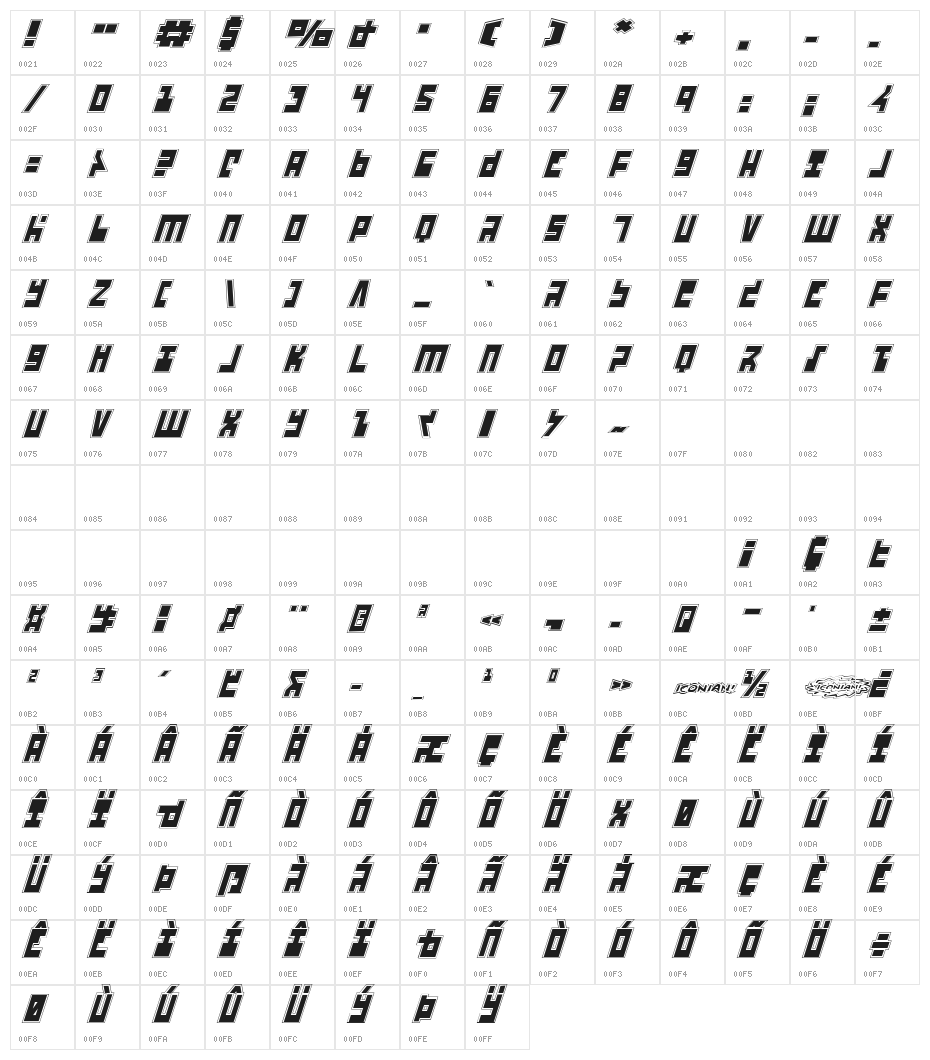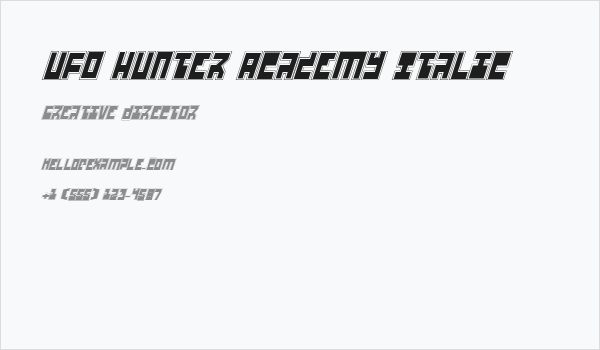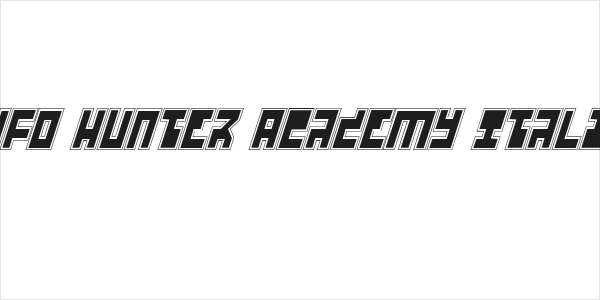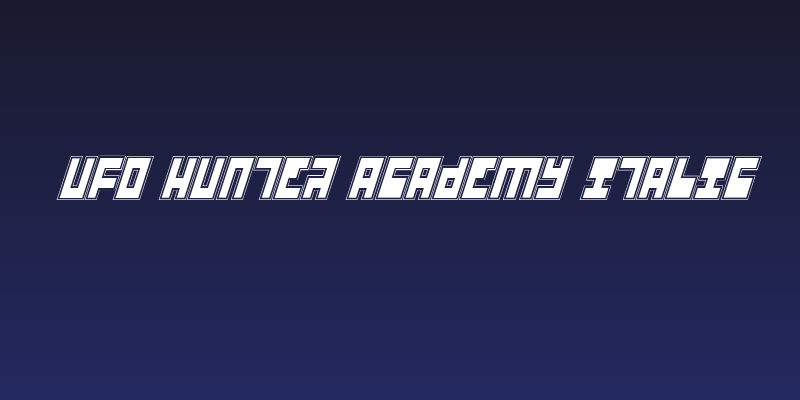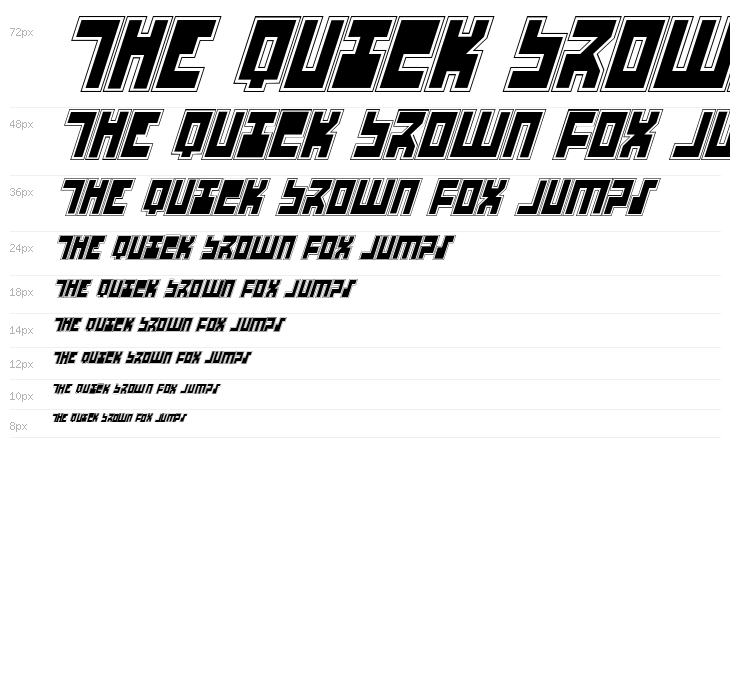
UFO Hunter Academy Italic Font
UFO Hunter Academy Italic Description
This font features a bold, futuristic design with a strong geometric structure. Each character is outlined, creating a striking contrast between the thick, solid interior and the thin, sharp edges. The italic slant adds a dynamic, forward-moving energy, making it ideal for attention-grabbing headlines or branding. The uppercase and lowercase letters maintain a consistent style, while the numbers and special characters complement the overall aesthetic. The font's unique style is reminiscent of sci-fi themes, making it perfect for projects that require a modern, edgy look.
| Overall Style | Modern, Futuristic |
| Proposed Projects | Ideal for sci-fi themed posters, video game titles, futuristic branding, and dynamic headlines. |